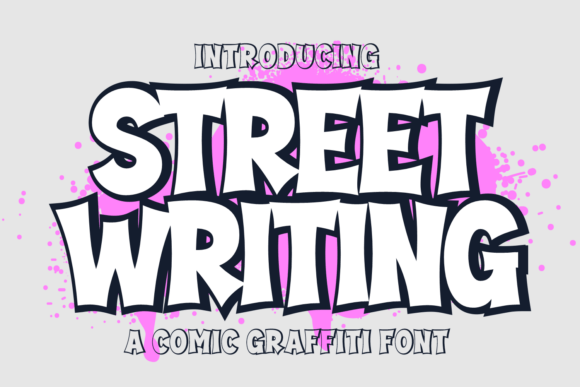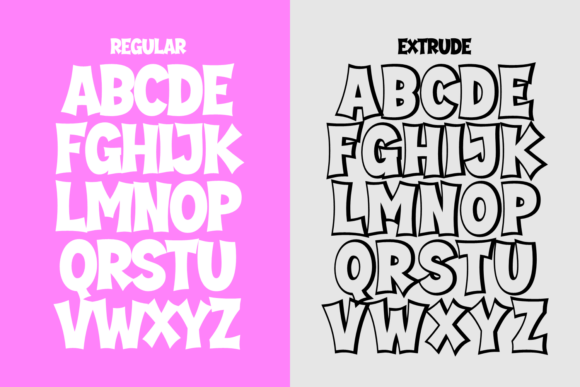
Street Writing Font
Introducing Street Writing, an incredibly versatile Graffiti Cartoon font designed to make your branding projects stand out. Ideal for logotype design, comic book lettering, creating striking watermarks, eye-catching posters, powerful promotions and distinctive product packaging. Every letter in Street Writing boasts a vibrant graffiti cartoon style, transforming text into a bold visual statement. The set consists of two font combinations – regular and extrude, allowing you the power to experiment and find your style. It’s packed full with a complete set of graffiti uppercase and lowercase letters, numerals, and punctuation. Be captivated by its cartoon style and find inspiration in the previews above. Here’s everything you need to convey your brand story with style and personality. Get ready to take your designs to the next level with Street Writing.